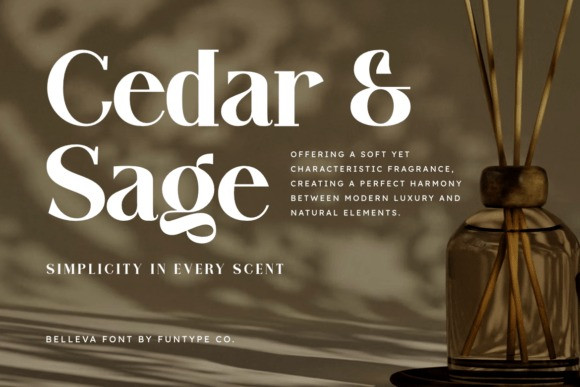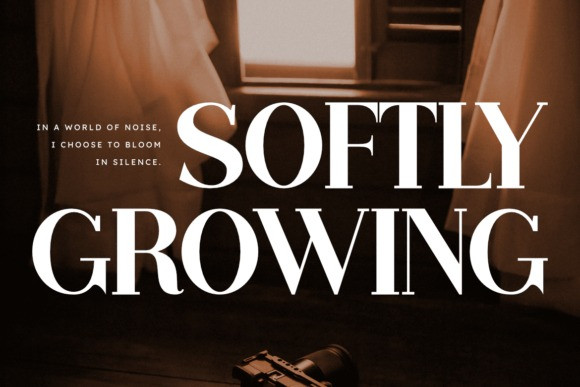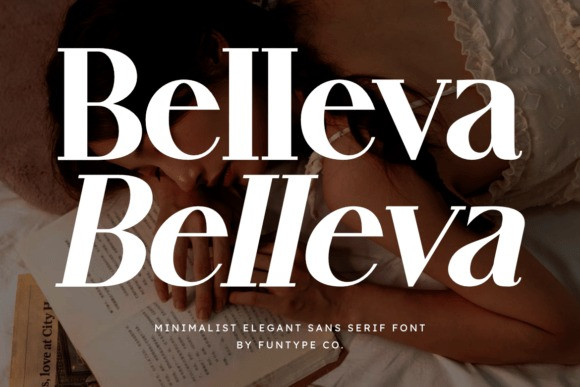
Belleva Font
Belleva Font is a sophisticated serif font family that exudes luxury and high-class aesthetics. With its unique contrast and refined curves, Belleva brings a touch of modern editorial style to any design project. This font is meticulously crafted to bridge the gap between classic elegance and contemporary minimalism.
The family includes both Regular and Italic versions, allowing you to create dynamic layouts with a cohesive look. Whether you’re designing a high-end brand identity, a sleek fashion magazine, or premium wedding stationery, Belleva provides the effortless chic your project needs.